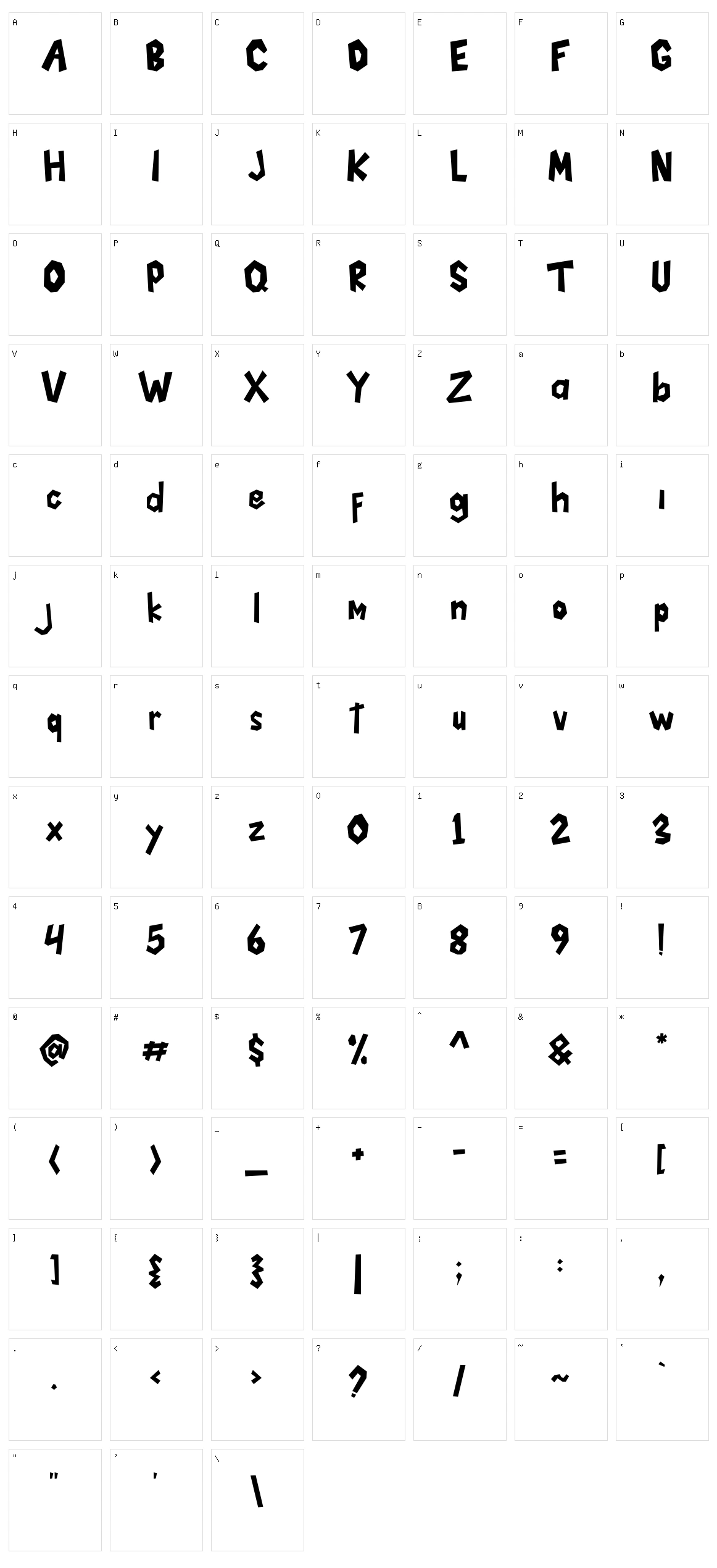
The free font Vimland is carefully designed by Azcreative Studio, showcasing a thoughtful balance of creativity and usability and falls under the Cartoon font style. When you download the ZIP file, it contains only 98.94 KB of font files, making it lightweight and quick to download. Please review the license details below to understand permitted usage and distribution rights. If license information is not available, we recommend using this font for personal projects only or contacting the author directly for commercial usage permissions.